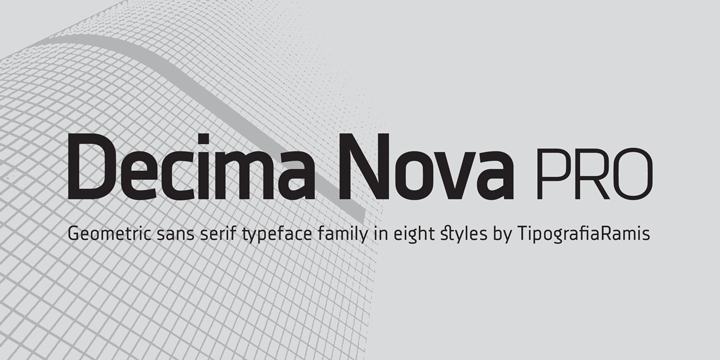
Decima Nova Pro Font is perfect for corporate annual reports, financial service branding, professional website interfaces, business presentations, legal documentation, enterprise software applications, and premium consulting materials that require authoritative, trustworthy typography.
This font is exciting because it represents the pinnacle of Swiss typographic tradition merged with contemporary digital optimization, featuring mathematically precise letterforms that convey professionalism, reliability, and executive-level sophistication across all business communications.
The Decima Nova Pro Font family includes ten weights from Thin to Black with matching italics, offering extensive OpenType features, multilingual support, advanced kerning pairs, professional numerals, and comprehensive punctuation for enterprise-level applications.
Corporate designers consistently select Decima Nova Pro Font Free Download for projects demanding uncompromising professionalism and international credibility. This exceptional typeface establishes immediate authority and trustworthiness, making it indispensable for Fortune 500 companies and global consulting firms. The font's systematic design approach ensures perfect consistency across complex document hierarchies while maintaining optimal readability in both print and digital environments. Its comprehensive weight range supports sophisticated typographic systems that can accommodate everything from executive summaries to detailed technical specifications. The advanced OpenType features enable precise typographic control that meets the exacting standards of professional publishing and corporate communications. Whether you're developing investor relations materials, creating enterprise software interfaces, or designing international business presentations, this typeface provides the typographic excellence and global compatibility that distinguishes world-class organizations from their competitors, establishing immediate credibility and professional distinction in highly competitive business environments.